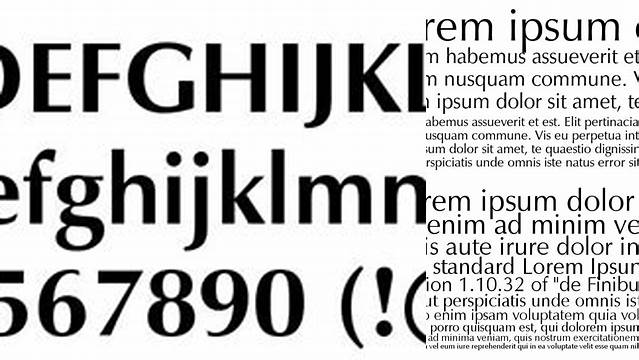
Introduction: Delving into the World of Zapf Humanist
Hey guys! Ever stumbled upon a font that just screams elegance and readability? Chances are, you've probably crossed paths with the Zapf Humanist, a typeface that's as timeless as it is versatile. In this article, we're diving deep into the world of Zapf Humanist, exploring its rich history, unique characteristics, and most importantly, guiding you on how to snag it for free. So, buckle up and let's get started!
The Zapf Humanist font family is renowned for its blend of calligraphic elegance and contemporary readability. Designed by the legendary German typographer Hermann Zapf, this typeface exudes a warmth and organic feel that sets it apart from more rigid, geometric fonts. Its roots can be traced back to the humanist sans-serif style, which emphasizes clarity and a handwritten touch. This makes Zapf Humanist an excellent choice for a wide range of applications, from body text in books and magazines to branding materials and web design. The font's open forms and balanced proportions contribute to its exceptional legibility, ensuring a comfortable reading experience even in extended texts. Furthermore, the Zapf Humanist family typically includes a variety of weights and styles, such as regular, bold, italic, and bold italic, providing designers with the flexibility to create nuanced typographic hierarchies and visual interest. Its versatility extends beyond print, as its clean lines and distinct letterforms render well on screens, making it a popular choice for digital media. The enduring appeal of Zapf Humanist lies in its ability to convey both sophistication and approachability, making it a valuable asset in any designer's toolkit. Whether used for formal documents or creative projects, this typeface adds a touch of class and readability that enhances the overall aesthetic.
The History and Evolution of Zapf Humanist
The story of Zapf Humanist begins with Hermann Zapf, a name synonymous with exceptional typography. Zapf, a self-taught calligrapher and type designer, left an indelible mark on the world of fonts. His creations, including Palatino and Optima, are celebrated for their craftsmanship and timeless appeal. Zapf Humanist is no exception. Its design reflects Zapf's deep understanding of letterforms and his commitment to creating fonts that are both beautiful and functional.
The evolution of Zapf Humanist is a fascinating journey through the changing landscape of typography. Initially conceived in the mid-20th century, the font has undergone several iterations and adaptations to meet the demands of modern design. Zapf's meticulous attention to detail is evident in every curve and stroke, ensuring that the font maintains its character and legibility across various media. Over the years, Zapf Humanist has been embraced by designers and typographers worldwide, solidifying its place as a classic typeface. Its versatility has allowed it to transcend trends, remaining a relevant and sought-after choice for diverse projects. From its early days as a meticulously crafted typeface to its current status as a digital staple, Zapf Humanist continues to inspire and influence the world of typography.
Key Characteristics That Define Zapf Humanist
So, what exactly makes Zapf Humanist stand out from the crowd? Well, a few key characteristics define its unique charm. First off, it's a sans-serif font, meaning it lacks the small decorative strokes (serifs) found in fonts like Times New Roman. But unlike many sans-serif fonts that can feel cold and clinical, Zapf Humanist has a warmth and organic quality. This is largely due to its calligraphic influence, giving the letters a subtle handwritten feel. The open forms and generous spacing contribute to its excellent readability, making it a joy to read in both print and digital formats.
Another defining characteristic of Zapf Humanist is its balanced proportions. The letters are carefully crafted to create a harmonious visual rhythm, ensuring that words flow smoothly across the page or screen. This attention to detail is a hallmark of Zapf's work, reflecting his commitment to typographic excellence. The font also boasts a versatility that makes it suitable for a wide range of applications. Whether you're designing a corporate brochure, a website, or a book, Zapf Humanist can adapt to the task. Its clean lines and elegant curves make it equally at home in formal and informal contexts. The variations within the Zapf Humanist family, including different weights and styles, further enhance its adaptability, allowing designers to create nuanced typographic hierarchies and add visual interest to their projects. In essence, Zapf Humanist is a testament to the power of thoughtful design, blending functionality with aesthetic appeal to create a typeface that is both timeless and contemporary.
Why Choose Zapf Humanist? Exploring the Font's Appeal
Why should you even consider Zapf Humanist for your next project? The font's appeal lies in its versatility and timeless elegance. It’s a fantastic choice for body text, headlines, and even branding materials. Its readability makes it a safe bet for projects where clarity is key. Plus, its subtle personality adds a touch of sophistication without being overly distracting. It’s like that friend who’s always well-dressed but never flashy – reliably stylish.
The versatility of Zapf Humanist extends to various design disciplines, making it a favorite among graphic designers, web developers, and branding specialists. Its clean, modern aesthetic is well-suited for corporate communications, editorial design, and digital interfaces. The font's legibility ensures that content is easily digestible, whether it's a lengthy report or a short call-to-action. Moreover, the range of weights and styles available within the Zapf Humanist family allows designers to create visual hierarchies and add emphasis where needed. This adaptability makes it a valuable asset for projects that require a cohesive and polished look. Beyond its functional benefits, Zapf Humanist also possesses an inherent elegance that elevates the overall design. Its refined letterforms and balanced proportions convey a sense of professionalism and attention to detail. This makes it an excellent choice for brands that want to project an image of sophistication and trustworthiness. Whether used in a logo, a website, or print materials, Zapf Humanist adds a touch of class that resonates with audiences.
Use Cases: Where Zapf Humanist Shines
Let's talk specifics. Zapf Humanist shines in a variety of use cases. Think corporate documents, websites, books, and magazines. It's equally at home in print and digital environments. Its clean lines and clear letterforms make it a go-to for body text, while its elegant variations can add flair to headlines and titles. Need a font for your resume? Zapf Humanist is a solid choice. Designing a website for a tech company? Zapf Humanist can bring a touch of modernity and sophistication.
In the realm of corporate communications, Zapf Humanist is often used for reports, presentations, and marketing materials. Its professional yet approachable demeanor makes it ideal for conveying information in a clear and engaging manner. In editorial design, the font's readability and versatility make it a popular choice for magazines, newspapers, and books. Its balanced proportions and clean lines ensure that readers can immerse themselves in the content without distraction. For web design, Zapf Humanist's legibility on screens is a major advantage. It renders well in various browsers and devices, ensuring a consistent user experience. The font's modern aesthetic also aligns with current design trends, making it a stylish choice for websites and digital interfaces. In branding, Zapf Humanist can be used to create a sophisticated and trustworthy image. Its clean lines and elegant curves convey professionalism, while its subtle personality adds a touch of warmth. Whether used in a logo, a tagline, or marketing materials, Zapf Humanist can help brands communicate their message effectively. Overall, the versatility of Zapf Humanist makes it a valuable asset for designers across a wide range of industries and applications.